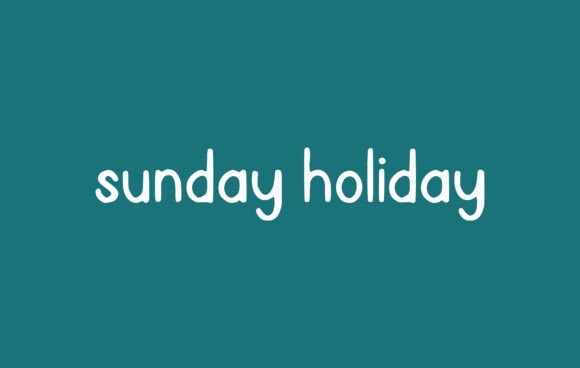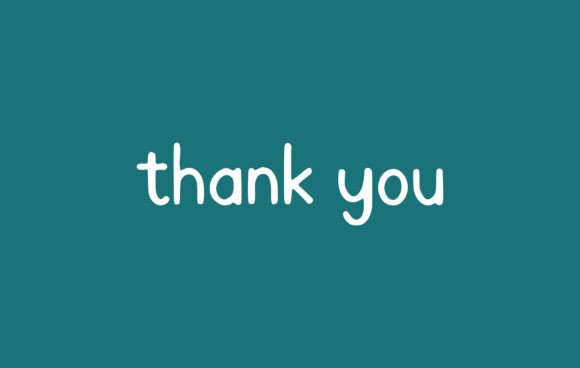
Aspen Font: Elevate Your Designs with a Romantic Handwritten Touch
In the world of typography, a well-crafted font can make all the difference in bringing your creative ideas to life. If you’re a designer, crafter, or simply someone who appreciates the art of beautiful writing, then you’re in luck. Introducing the Aspen font, an authentic handwritten font that exudes a romantic touch and is sure to become a true favorite in your collection.
The Charm of Aspen Font
Aspen font is more than just a pretty face; it’s a versatile and legible typeface that can be used in a variety of design applications. Whether you’re looking to create stunning magazine headlines, craft social media graphics, develop a brand identity, or design beautiful wedding invitations and cards, this font is the perfect choice.
What sets Aspen font apart is its unique blend of elegance and playfulness. The handwritten style gives it a personal and intimate feel, making it perfect for projects that require a touch of warmth and personality. At the same time, the font’s clarity and legibility ensure that it remains professional and easy to read, even at smaller sizes.
Design Possibilities with Aspen Font
One of the most exciting things about the Aspen font is its incredible versatility. Here are just a few ideas to get you started:
- Magazine Headlines: Use Aspen font to create eye-catching headlines that grab readers’ attention and draw them in.
- Social Media Graphics: Add a personal touch to your social media posts with custom graphics featuring the Aspen font.
- Branding: Develop a unique brand identity with Aspen font, perfect for logos, business cards, and letterheads.
- Wedding Invitations: Create beautiful, one-of-a-kind wedding invitations and stationery with the romantic and elegant Aspen font.
- Cards and Stationery: Design personalized cards, gift tags, and stationery that showcase your creativity and style.
Why Choose Aspen Font?
With so many fonts available, why choose Aspen font for your next project? Here are just a few reasons:
- Unique and Authentic: Aspen font is a one-of-a-kind typeface that will set your designs apart from the crowd.
- Legible and Versatile: The font’s clarity and flexibility make it perfect for a wide range of design applications.
- Romantic and Elegant: Add a touch of sophistication and romance to your designs with the beautiful Aspen font.
If you’re looking for a font that will elevate your designs and add a touch of romance and elegance, look no further than the Aspen font. With its unique blend of playfulness and sophistication, this authentic handwritten font is sure to become a favorite in your collection. Whether you’re a seasoned designer or just starting out, Aspen font is the perfect choice for anyone looking to bring their creative ideas to life.